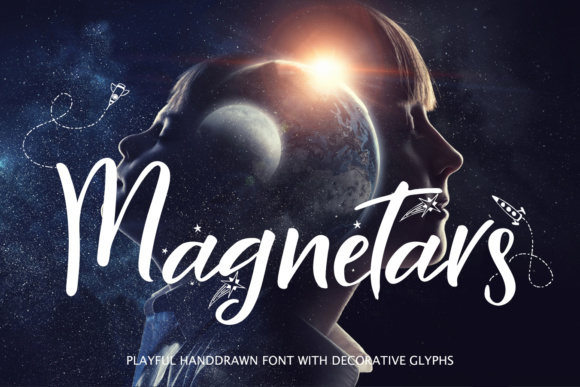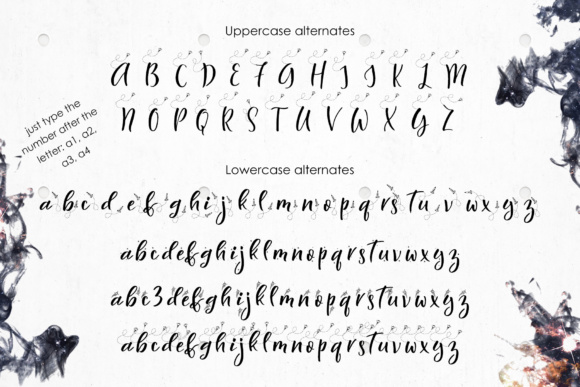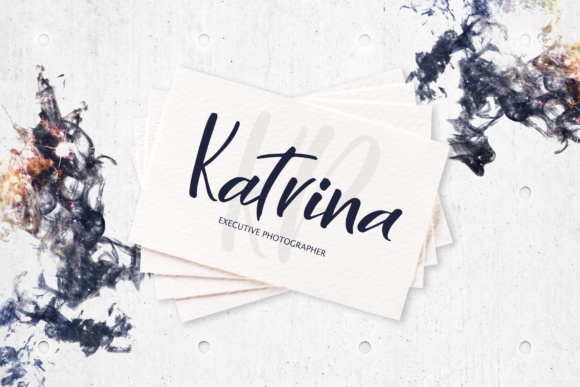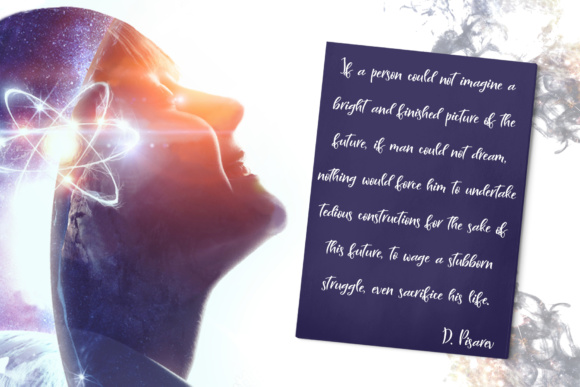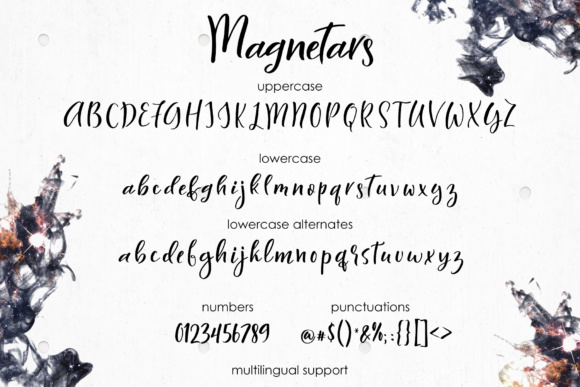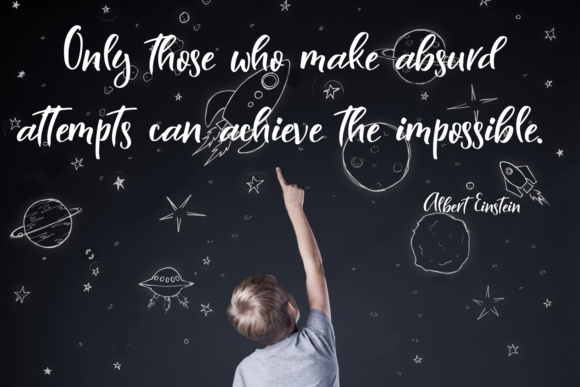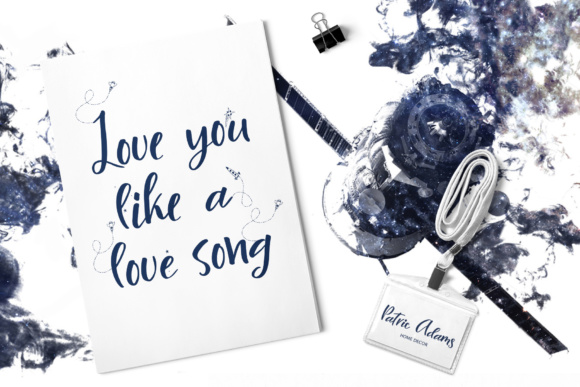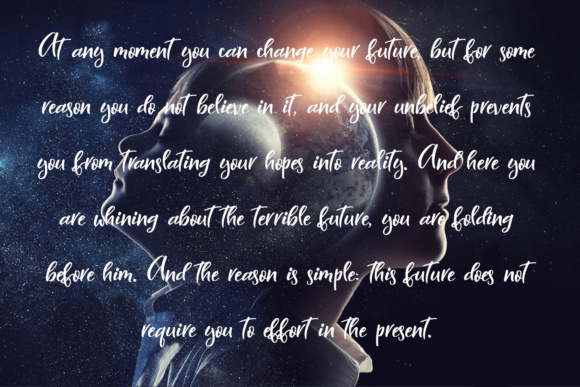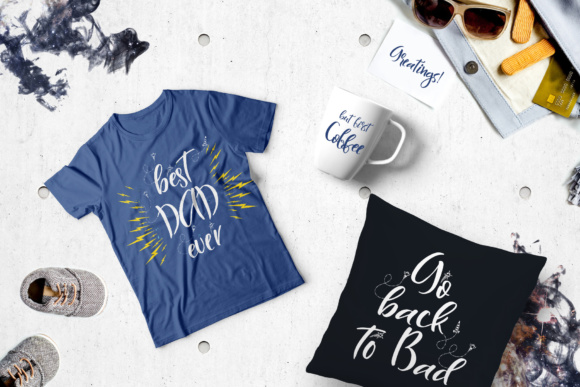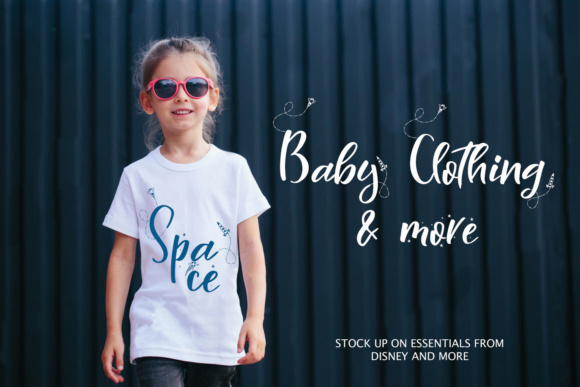
Magnetars Font
About Magnetars Font
Magnetars is a beautiful display font, ideal for use in a wide range of project types. This font has a bold and painterly look, and can add a retro chic design to your works.